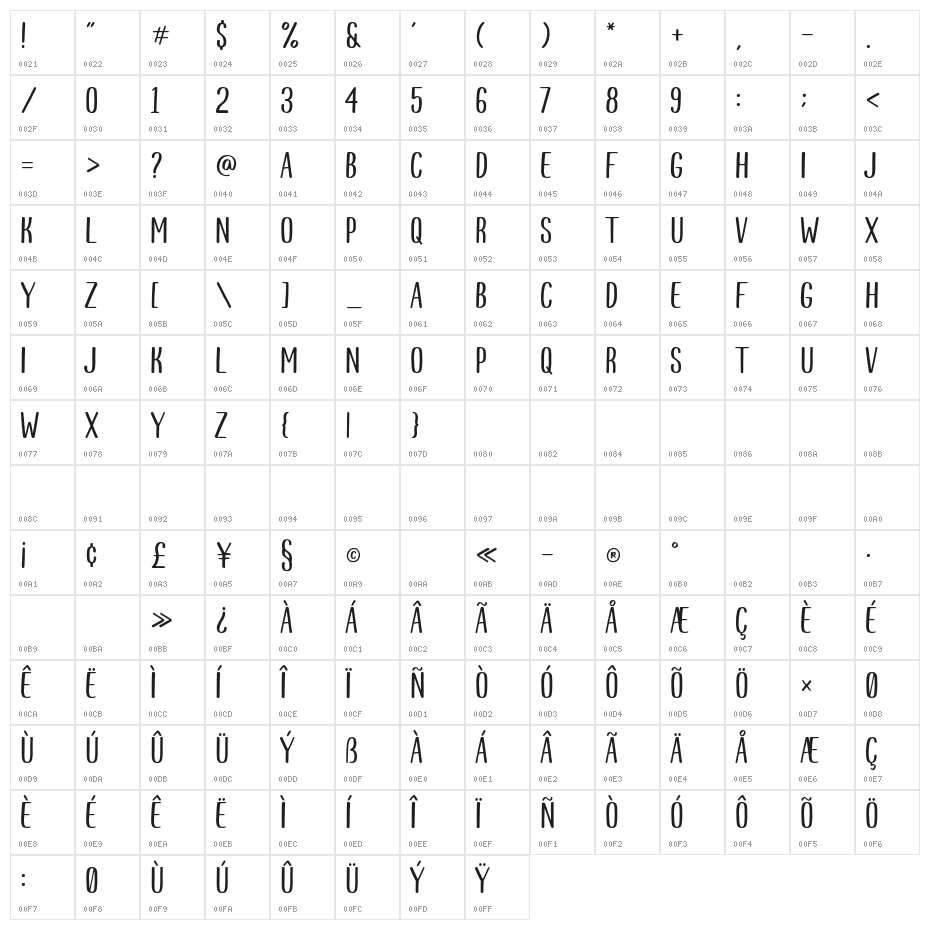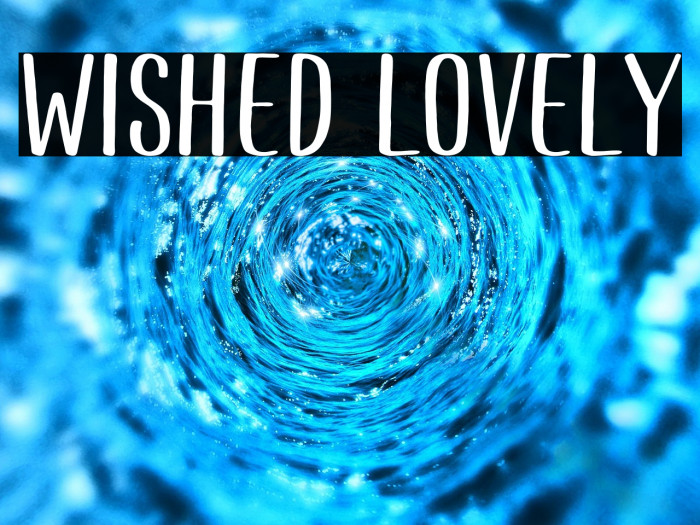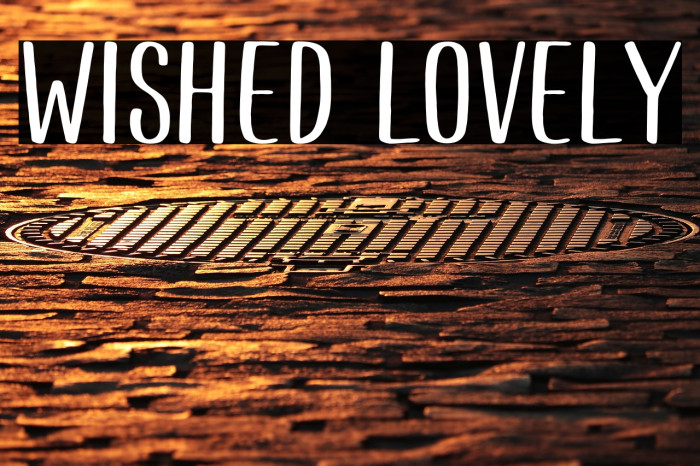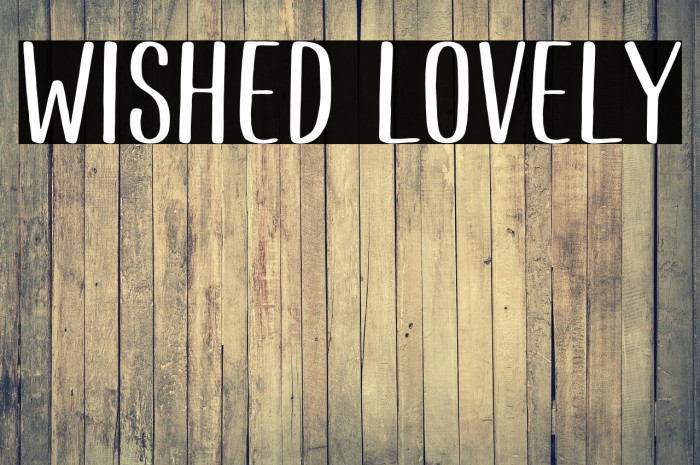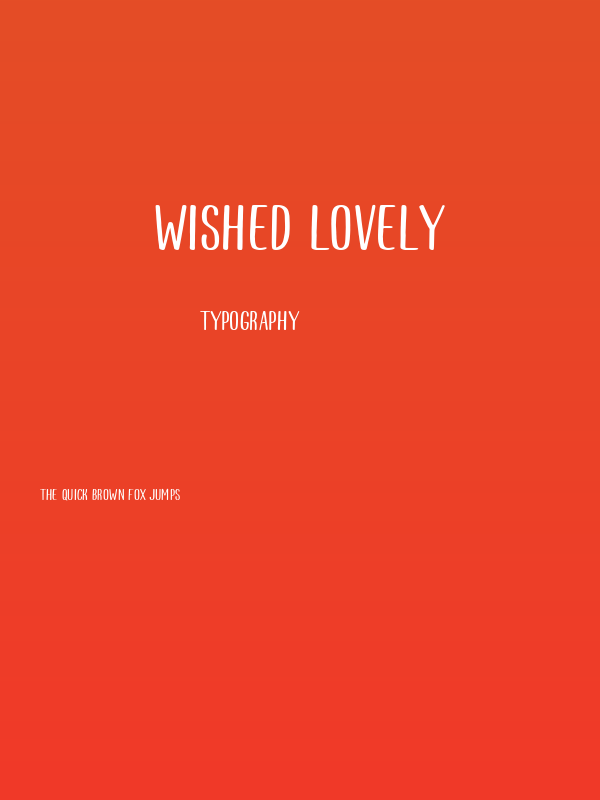
Wished Lovely Font
Wished Lovely Description
This font features a playful and casual style with a handwritten appearance. The letters are slightly elongated and have a consistent stroke width, giving it a clean yet informal look. The uppercase and lowercase letters maintain a uniform height, contributing to its legibility. The numbers are well-proportioned and align seamlessly with the alphabetic characters. Special characters are included, enhancing its versatility for various design needs. The overall aesthetic is friendly and approachable, making it suitable for a wide range of creative projects.
Overall StyleCasual
Use CaseHeadlines, Logos, Invitations
Proposed ProjectsIdeal for greeting cards, invitations, children's books, and casual branding projects.